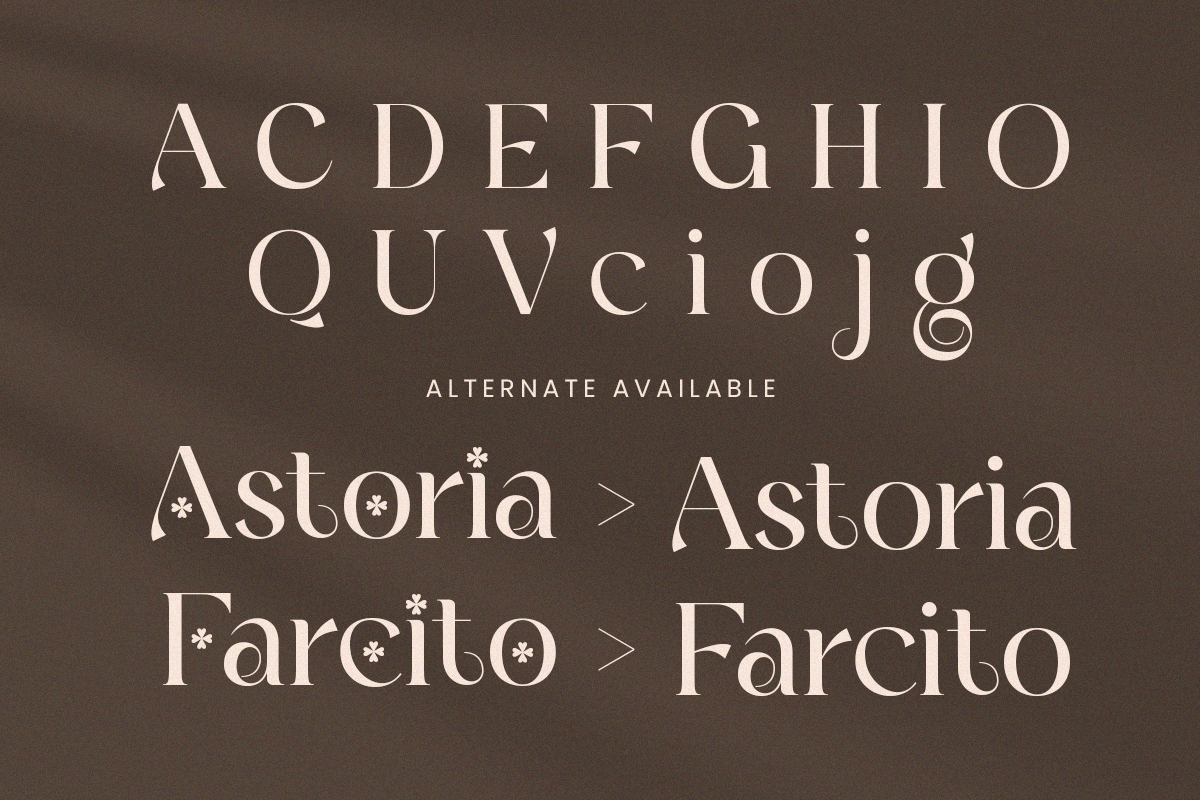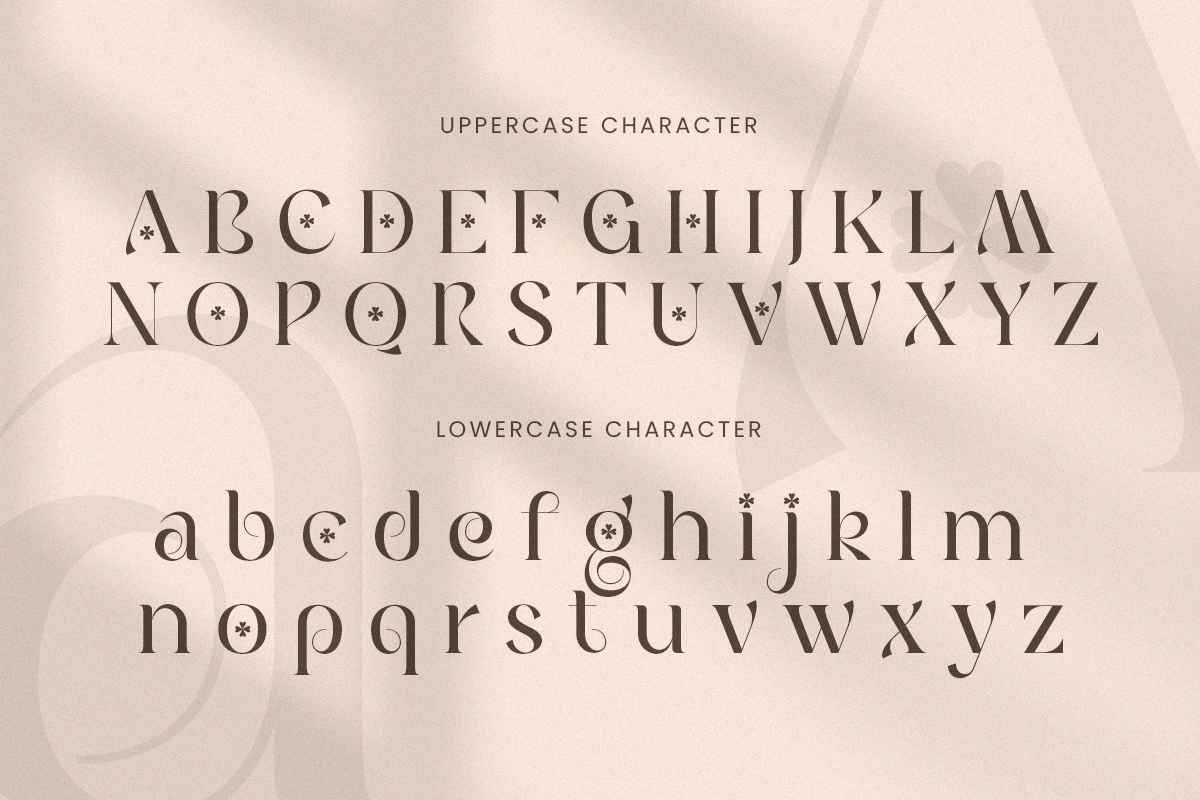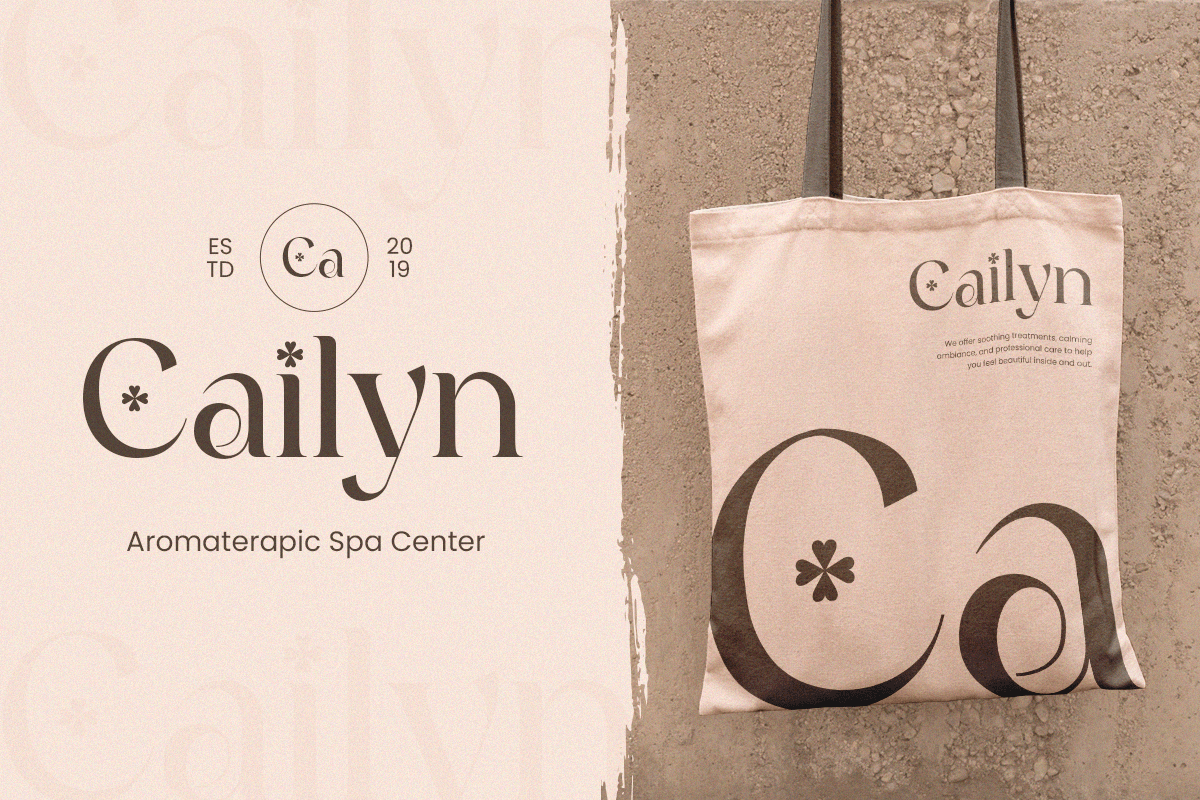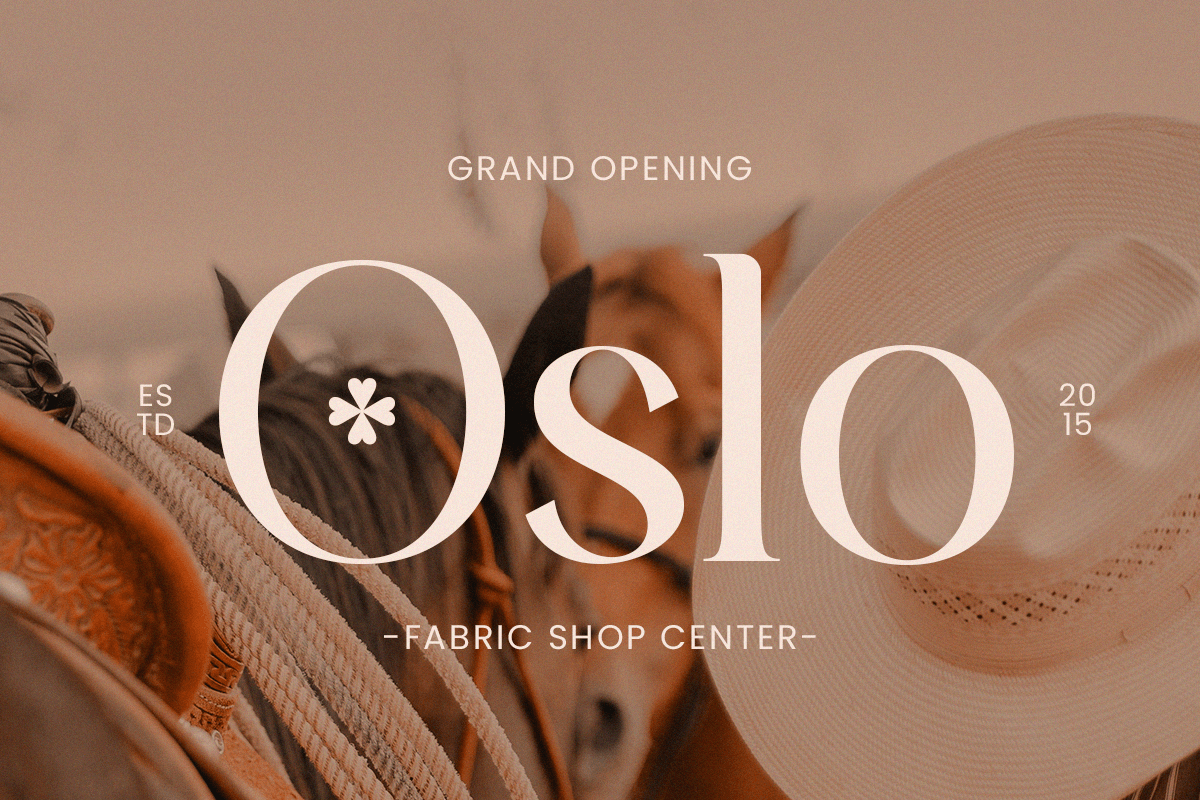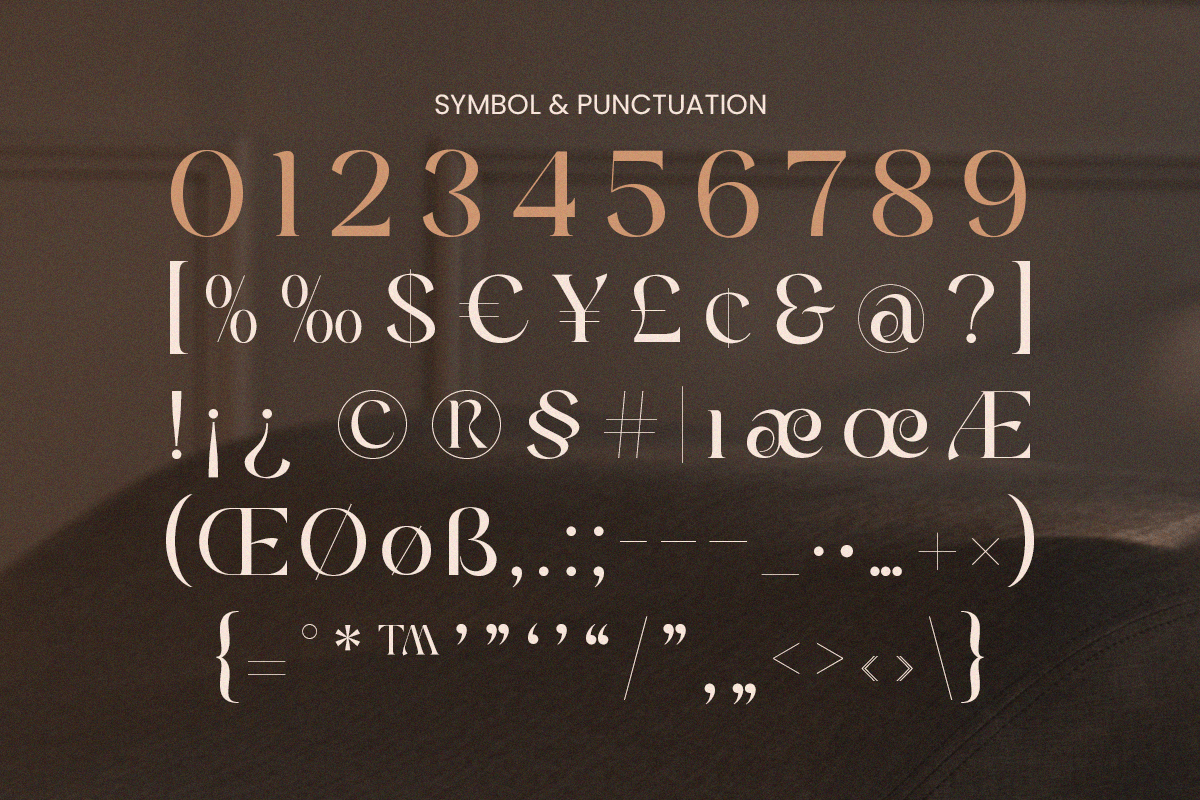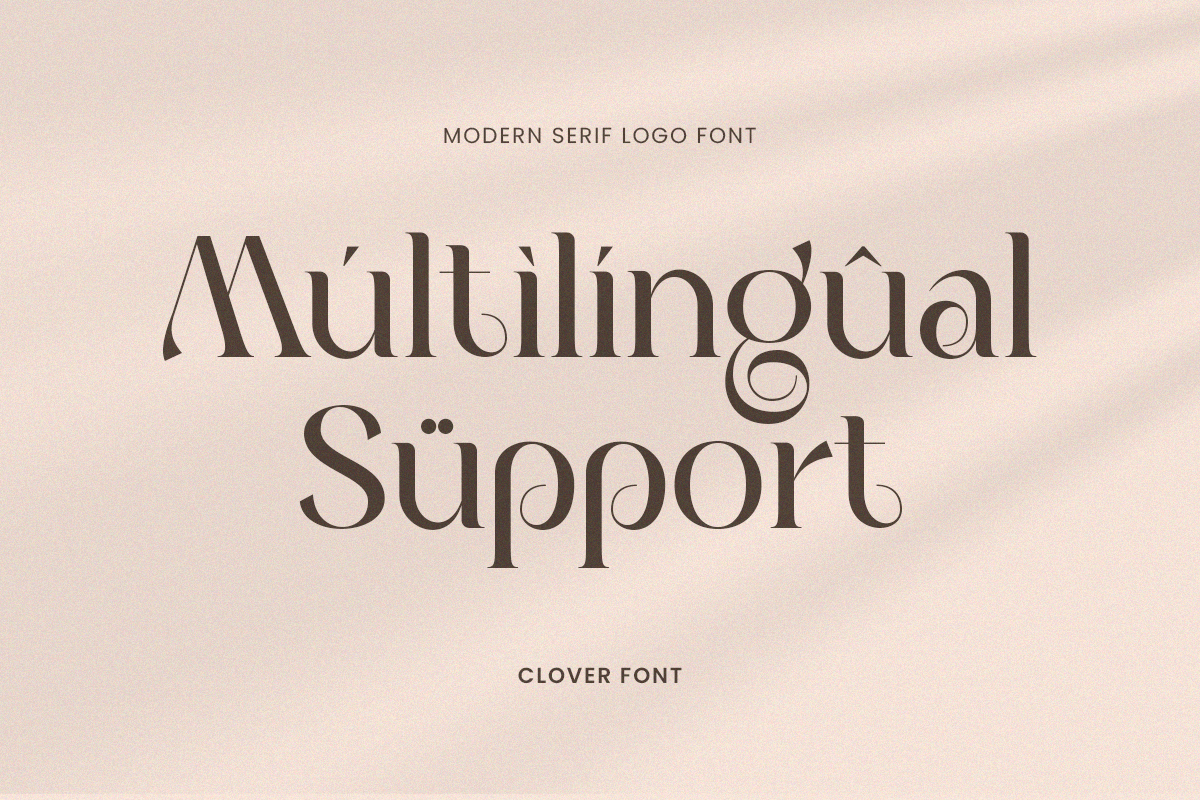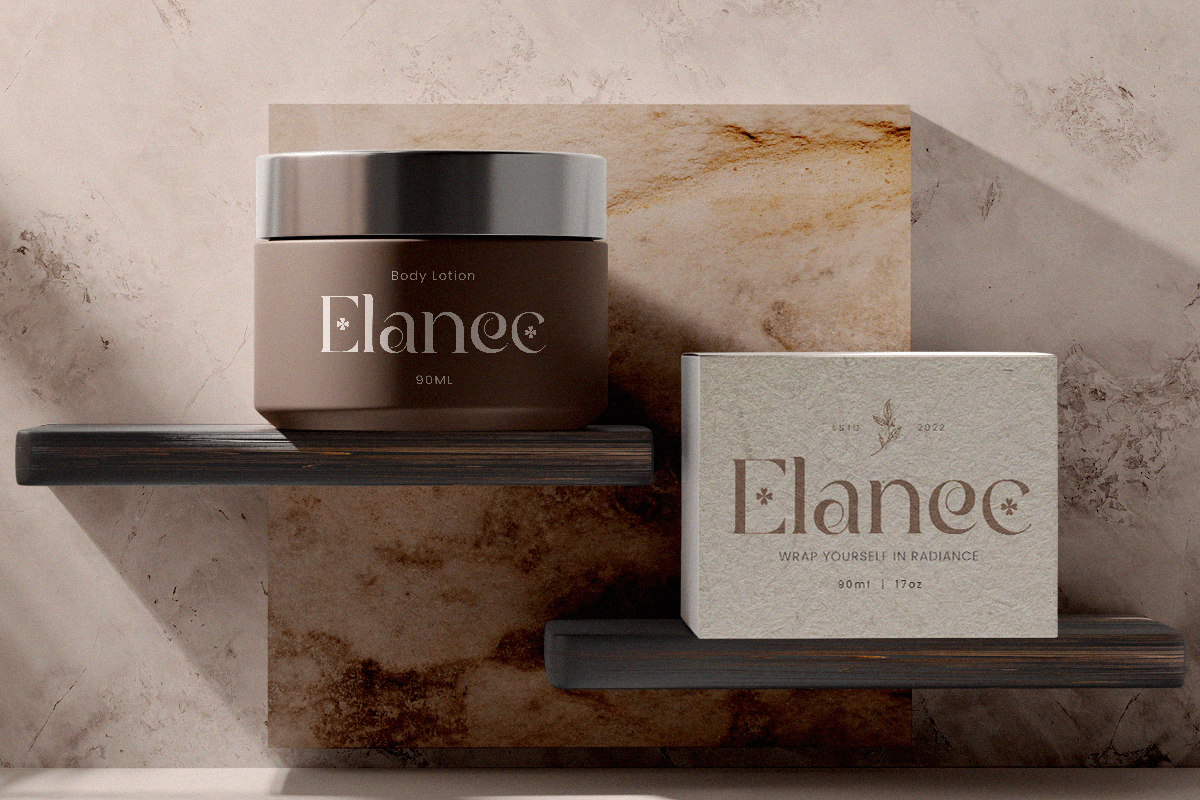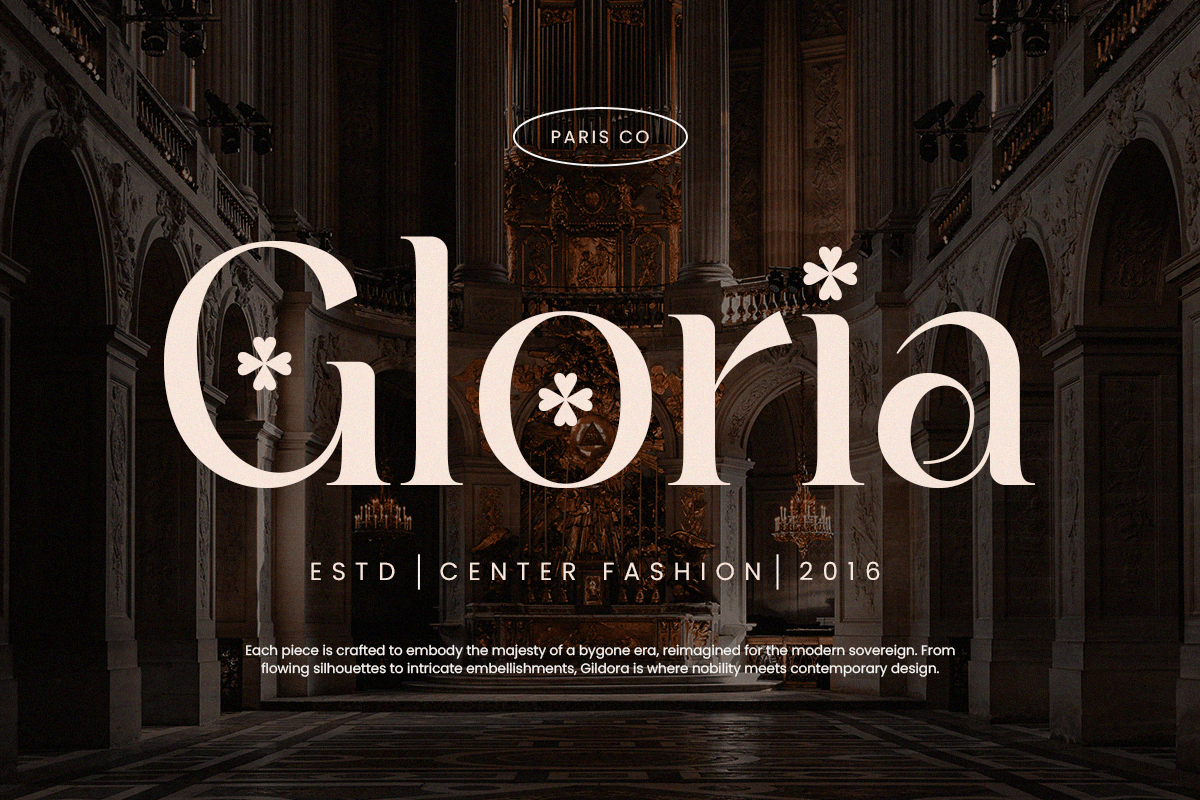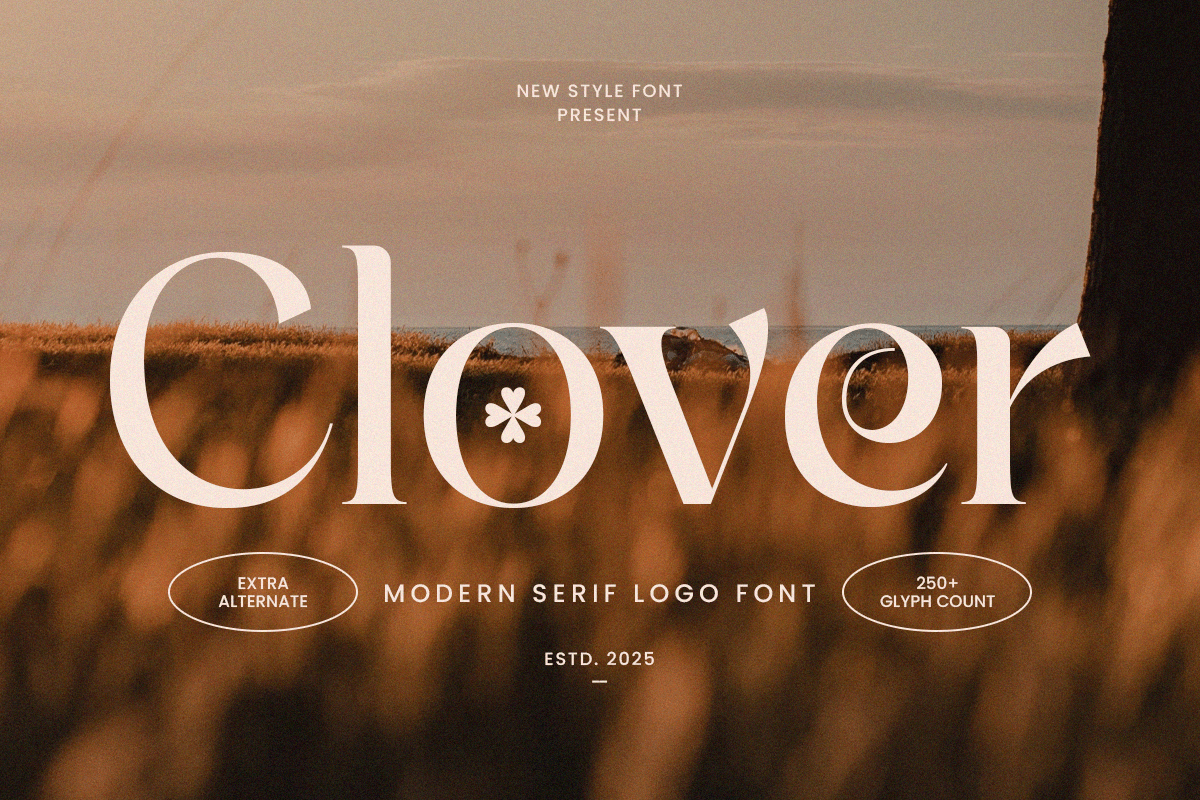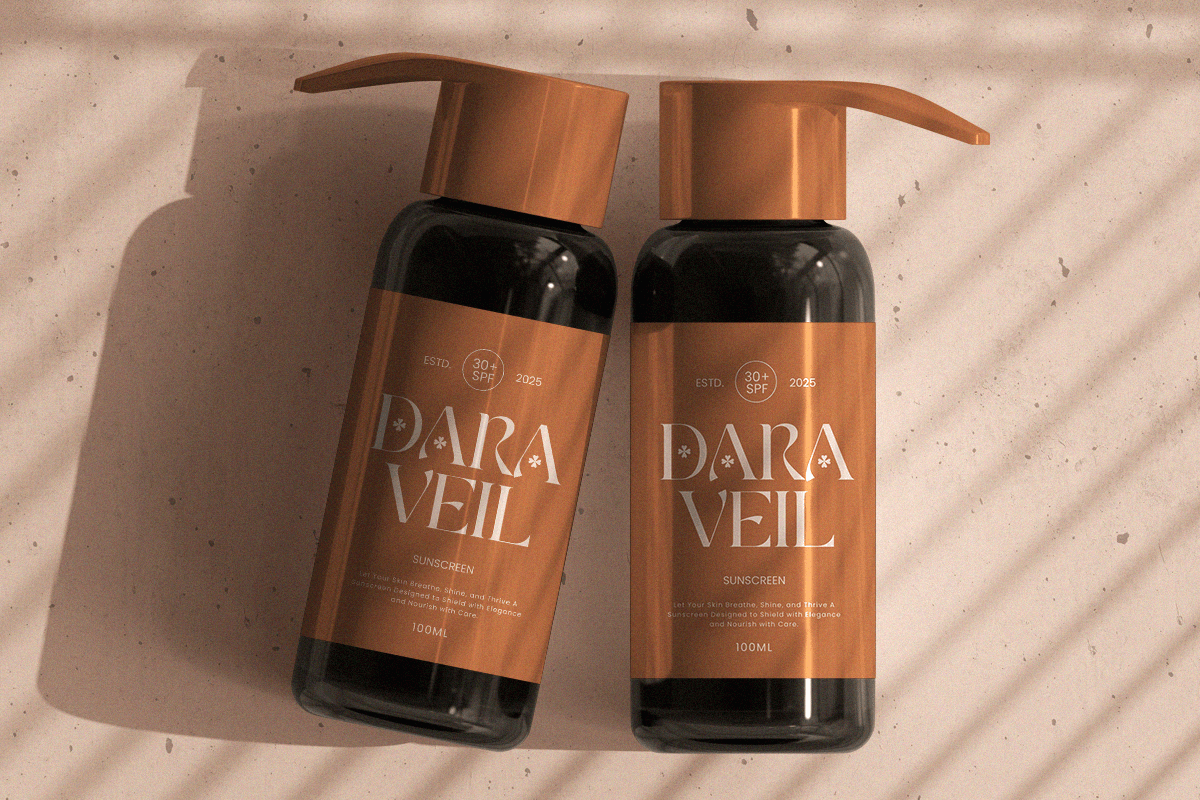
Clover - Modern Serif Logo Font
Clover is a modern serif logo font that blends timeless sophistication with a contemporary aesthetic. Designed with clean contrast and refined curves, it’s ideal for elegant branding, editorial design, packaging, and high-end visual identities.
Each character in Clover is crafted with graceful precision, balancing bold confidence and subtle elegance. This makes it perfect for fashion labels, lifestyle brands, interior studios, and creative businesses seeking a modern yet classic logo style.
With its versatile serif structure, Clover performs beautifully across print and digital mediums — from brand marks and monograms to magazine covers and web headlines. Its minimalist charm adds a sense of trust and exclusivity to any project.
Clover – Modern Serif Logo Font Features
Elegant modern serif style with clean contrast
Perfect for branding, logos, packaging, and editorials
Luxurious, versatile, and timeless typographic aesthetic
Great readability for both print and digital applications
Uppercase, lowercase, numerals, and punctuation included
OpenType features for professional typography control